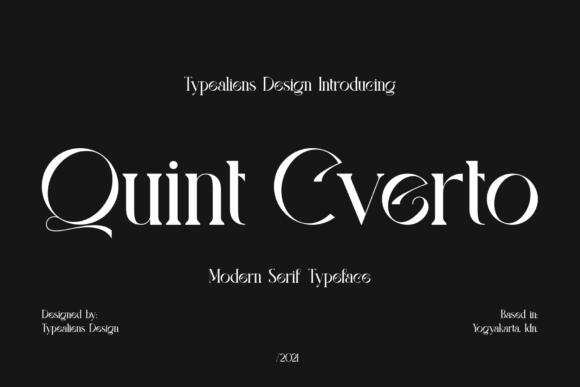
Dive into Quint Cverto, a graceful and stately serif font family, meticulously designed by typealiens to captivate your creative endeavors. Quint Cverto exudes elegance and sophistication, crafted to lend an air of timeless beauty to your digital creations.
With its tall and slender serifs, Quint Cverto dances across your screen, inviting you to explore a world of typographic possibilities. Its light and airy structure imparts a sense of delicacy, while its unwavering presence commands attention. Whether you're crafting formal invitations, designing elegant branding, or simply seeking a font that elevates your everyday documents, Quint Cverto is your perfect companion.
Unleash your imagination and let Quint Cverto guide you through a symphony of creative expression. Its versatility knows no bounds, adapting seamlessly to a myriad of design styles and genres. From classic and timeless designs to contemporary and edgy aesthetics, Quint Cverto effortlessly blends with your unique vision.
Experience the allure of Quint Cverto and elevate your designs to new heights. Its captivating presence will leave a lasting impression on your audience, ensuring your messages are conveyed with style and impact.